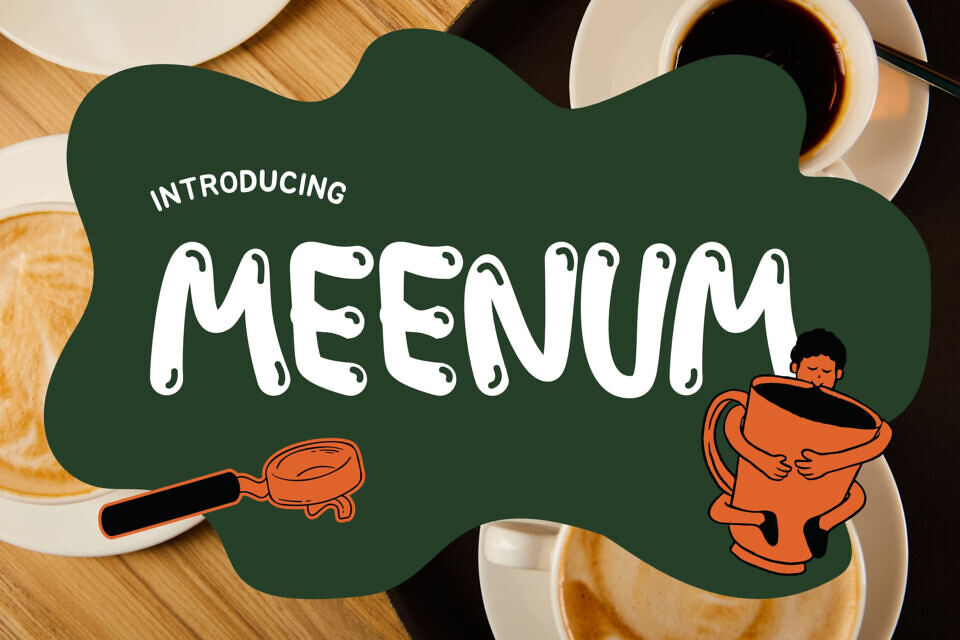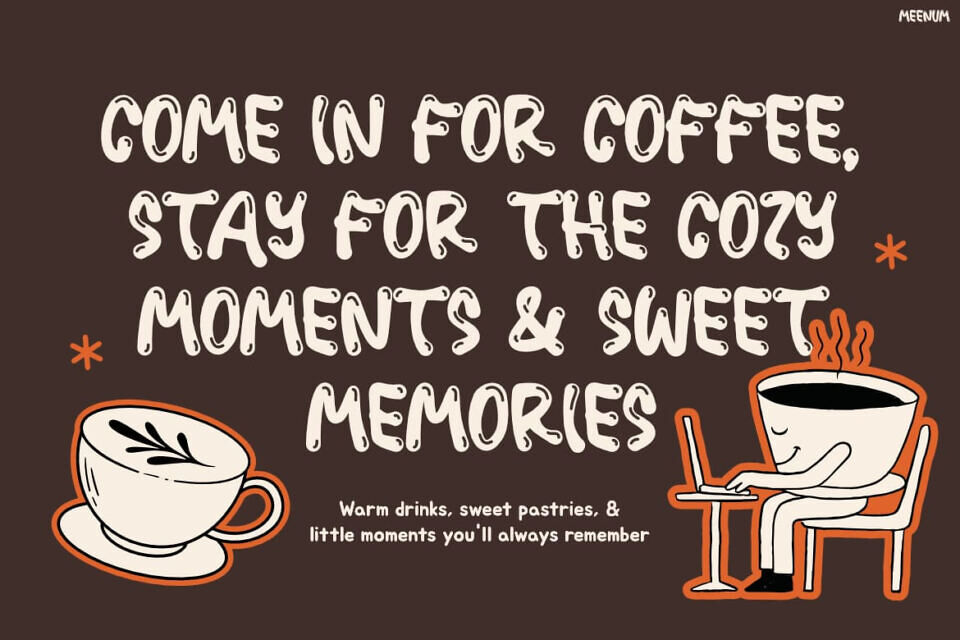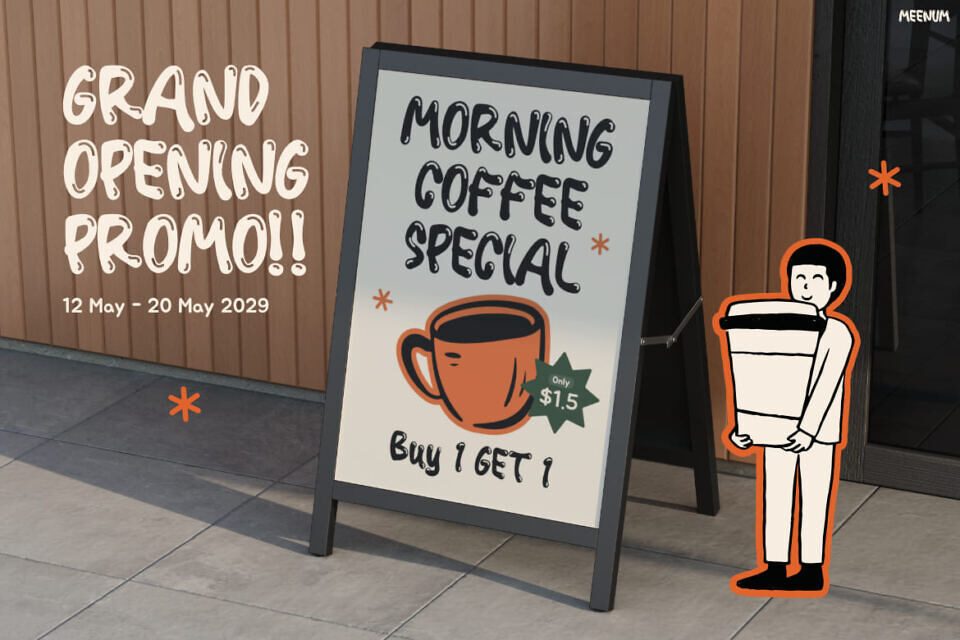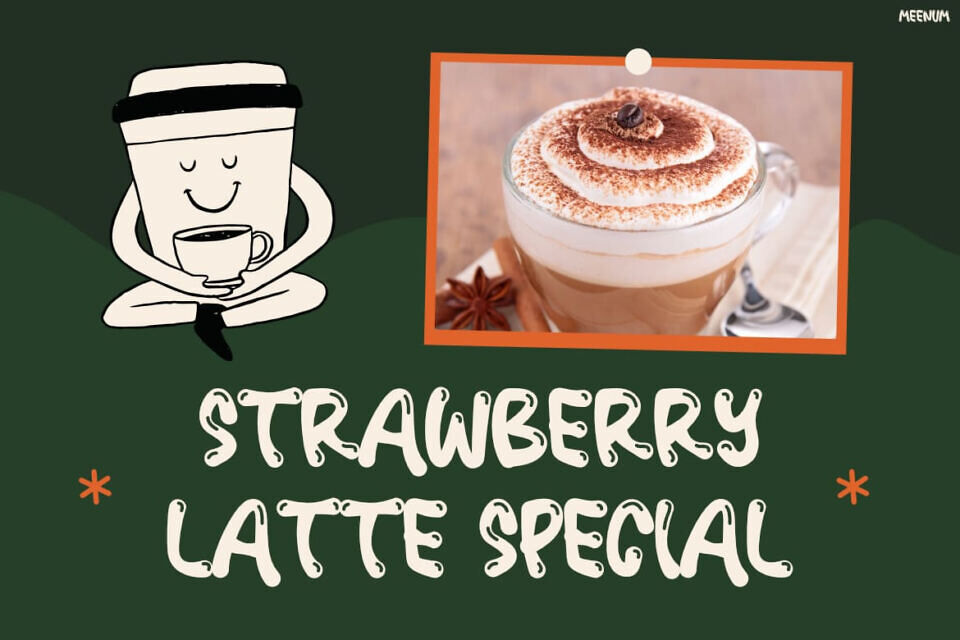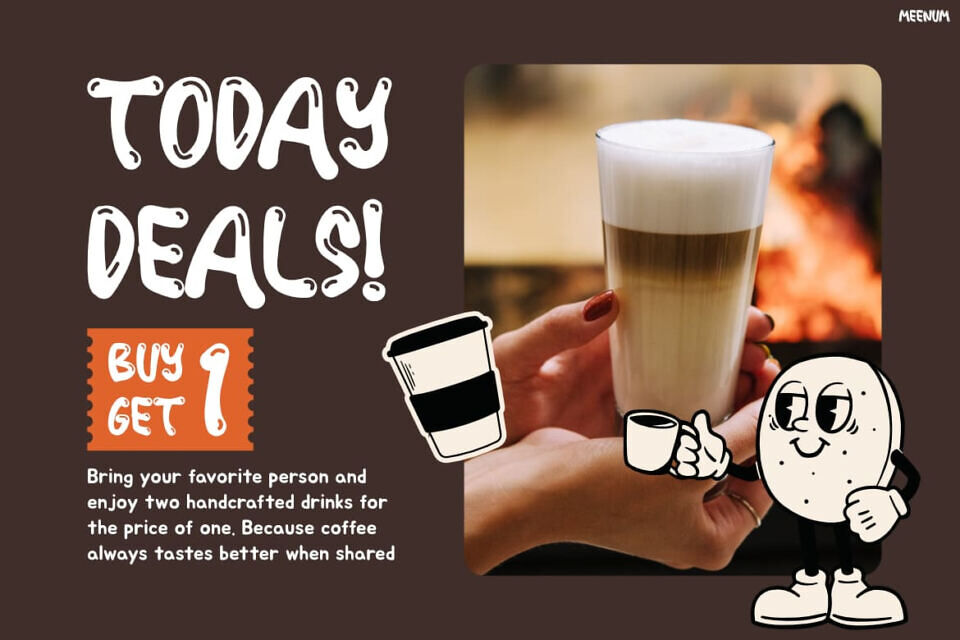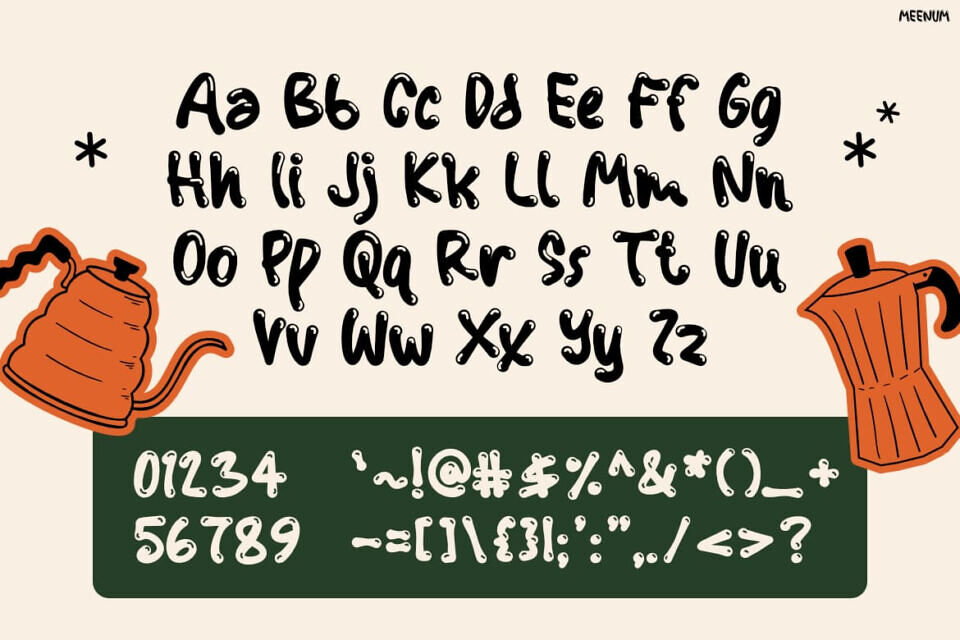
Meenum is a lively, handwritten display font that combines playfulness with a warm feel. Its rounded strokes create a friendly atmosphere, while casual letterforms add a fun, handmade touch.
This makes headlines more inviting and memorable, yet the clean structure keeps text easy to read. Meenum’s cozy aesthetic works well in both digital and print media, making it perfect for creative projects that need a cheerful, approachable look.